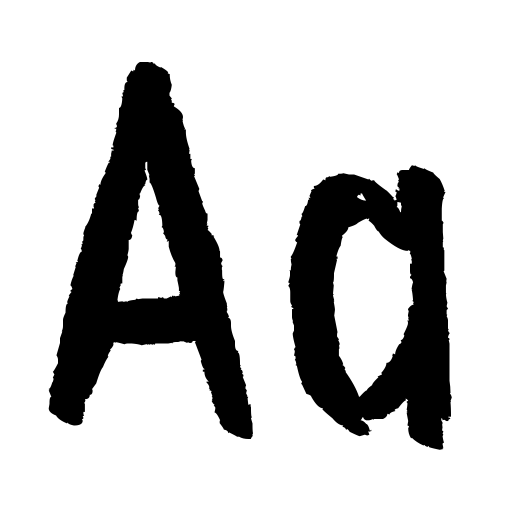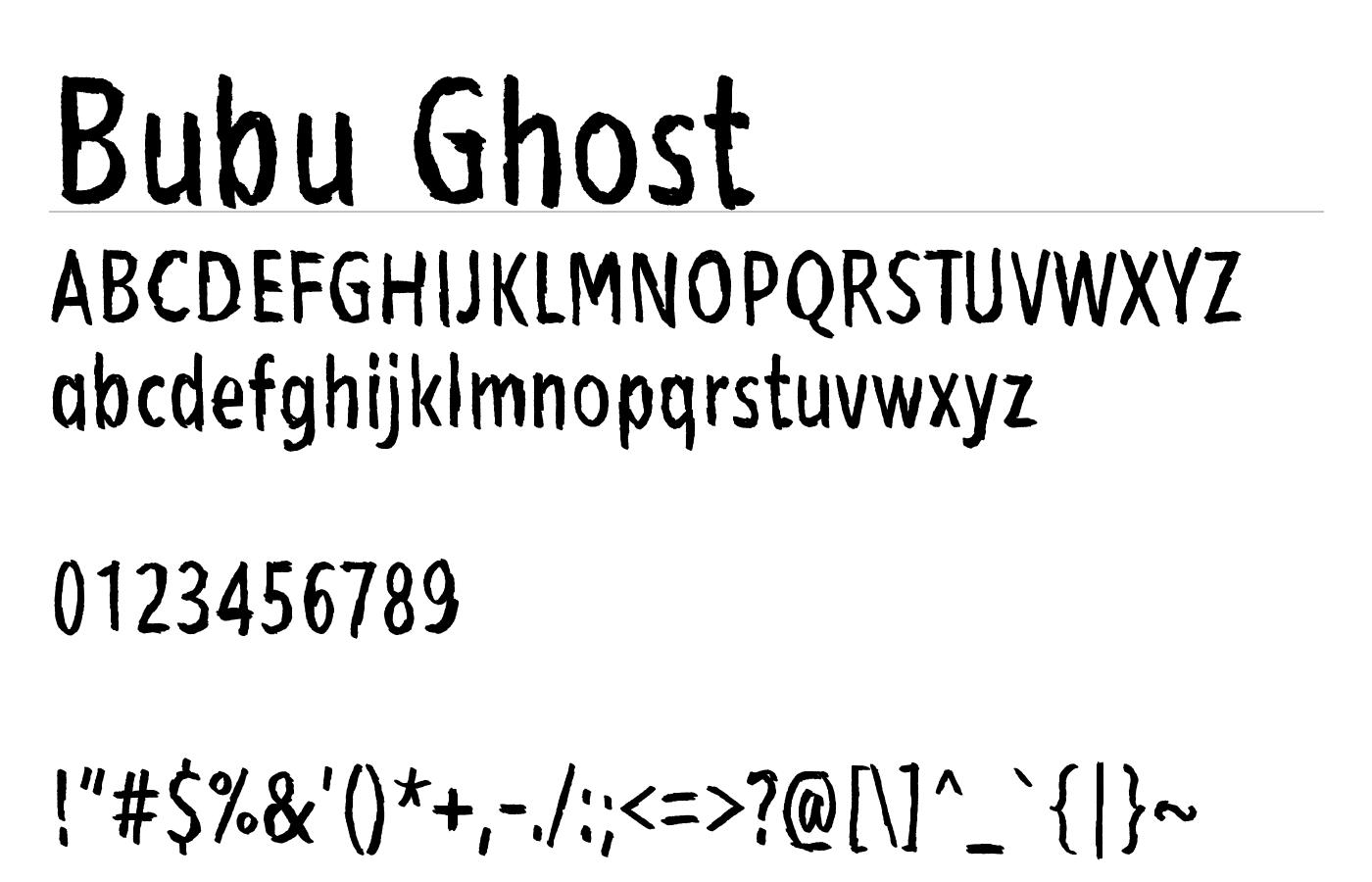
Bubu Ghost is a playful, hand-drawn sans serif font with an irregular, slightly rough texture that gives it a quirky and friendly personality. Its uneven strokes and casual letterforms create an approachable, informal feel perfect for creative projects, children's materials, or fun branding. This font works well in headlines, logos, and packaging where a unique, charming, and whimsical look is desired.
Bubu Ghost Font
About Bubu Ghost Font